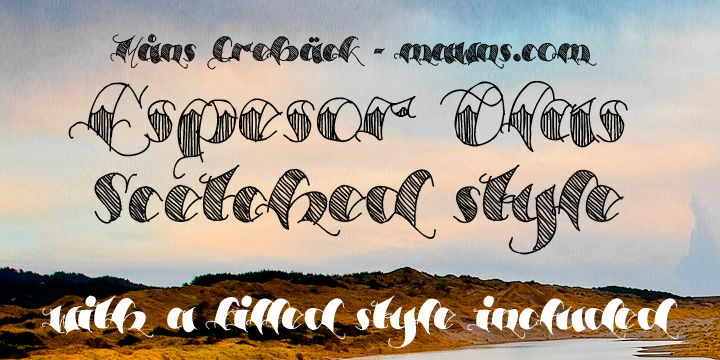
Espesor Olas Half by Måns Grebäck is a free decorative calligraphic font with sweeping flourishes and sharply pointed forms. Broad loops cross and overlap the letters. Striped lower sections add an unusual engraved texture, turning the flowing script into elaborate ornament.
Invitations are a natural setting for its formal movement and dramatic detail, with event posters and fashion packaging offering equally suitable contexts. Its theatrical curves and patterned fills will appeal most to designers creating romantic, gothic, or darkly elegant work.